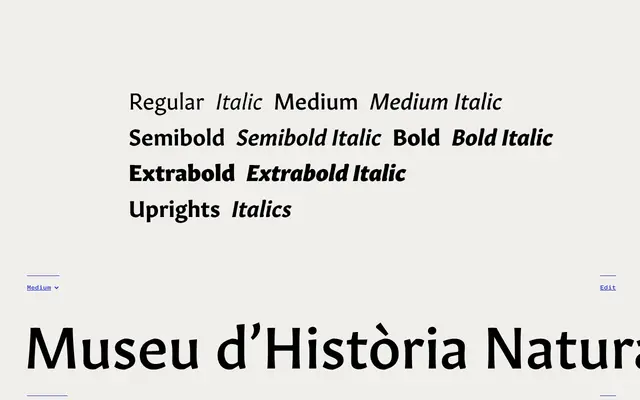
Gitan Latin
Rosetta · Florian Runge · 2016
A flared sans serif by Florian Runge that draws on engraving and stone carving to produce a typeface equally at home in text and display.
Cuneiform head serifs and deeply cut wedge terminals give Gitan a sculptural character rooted in material craft rather than digital abstraction. The design carries moderate contrast, making it durable at text sizes, while its angular detailing and expressive rhythm suit poster and packaging work. Five weights with matching italics and variable font axes make the family flexible across editorial, wayfinding and branding contexts.
Gitan is a flared sans serif with cuneiform head serifs and wedge terminals drawn from engraving and stone-carving traditions, placing it between a humanist sans and a lapidary inscribed style.